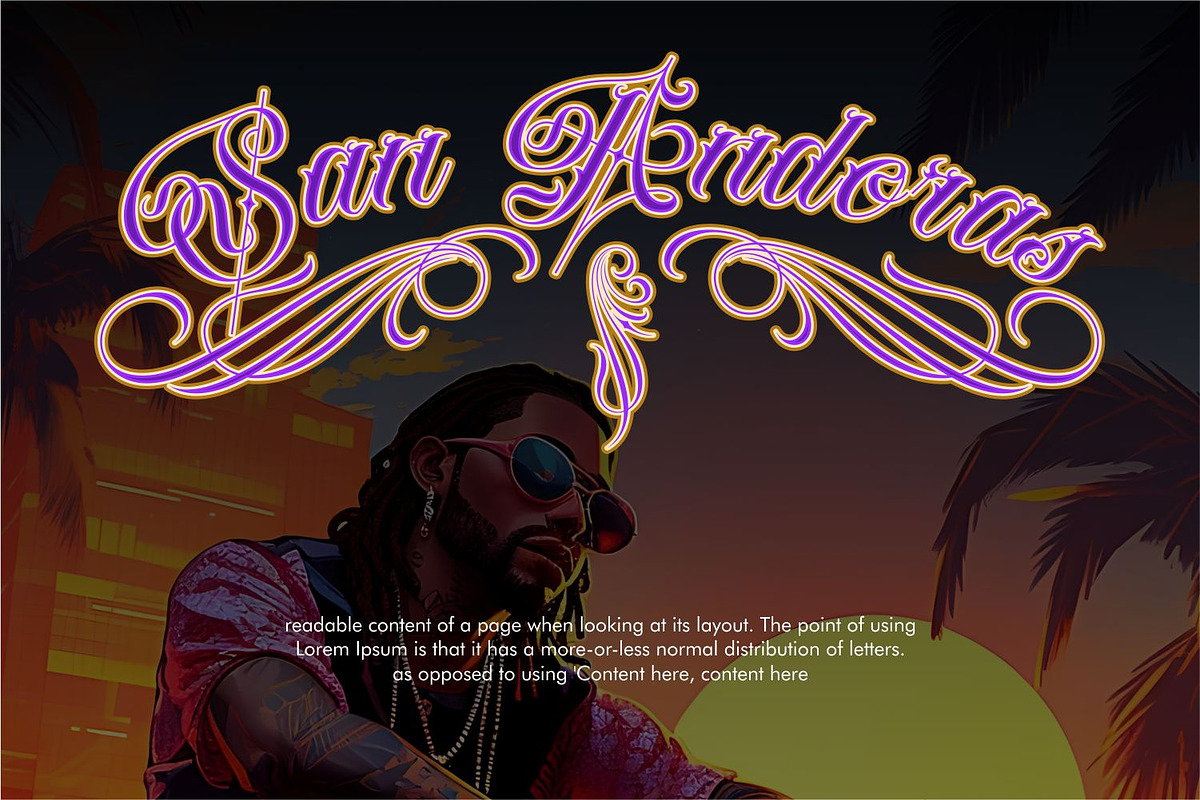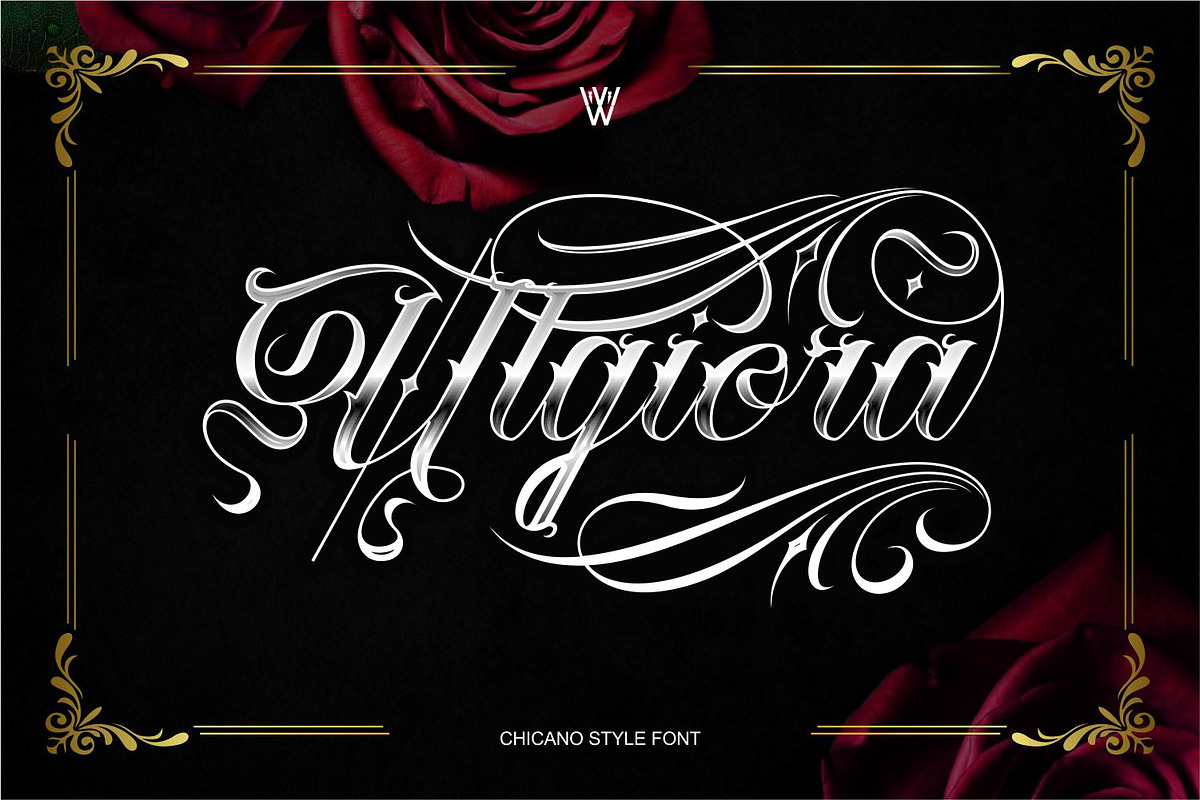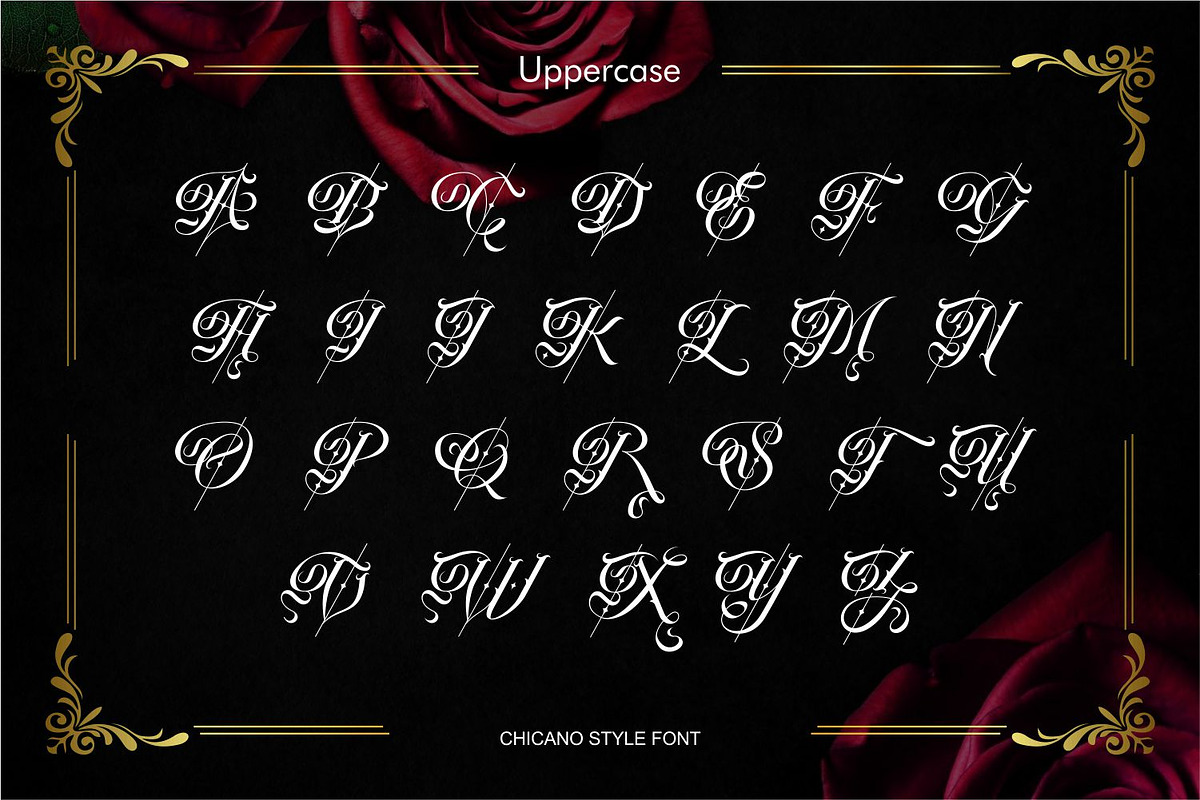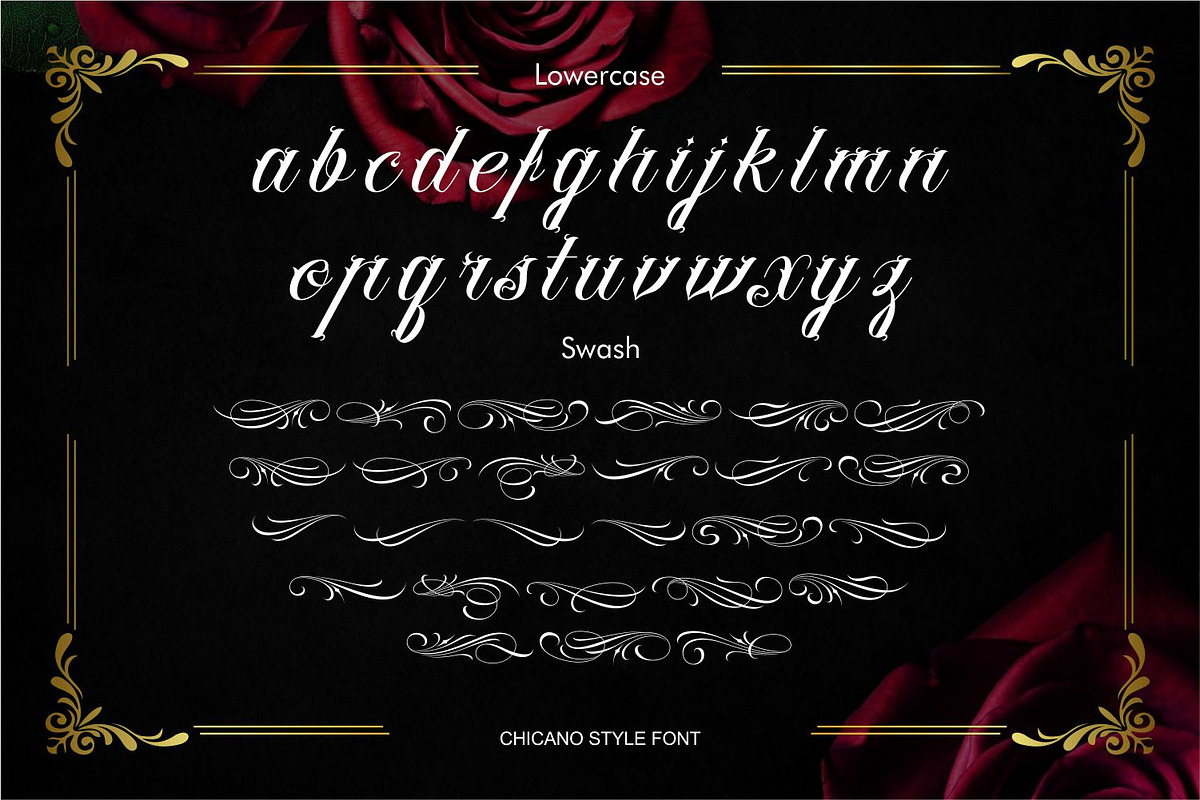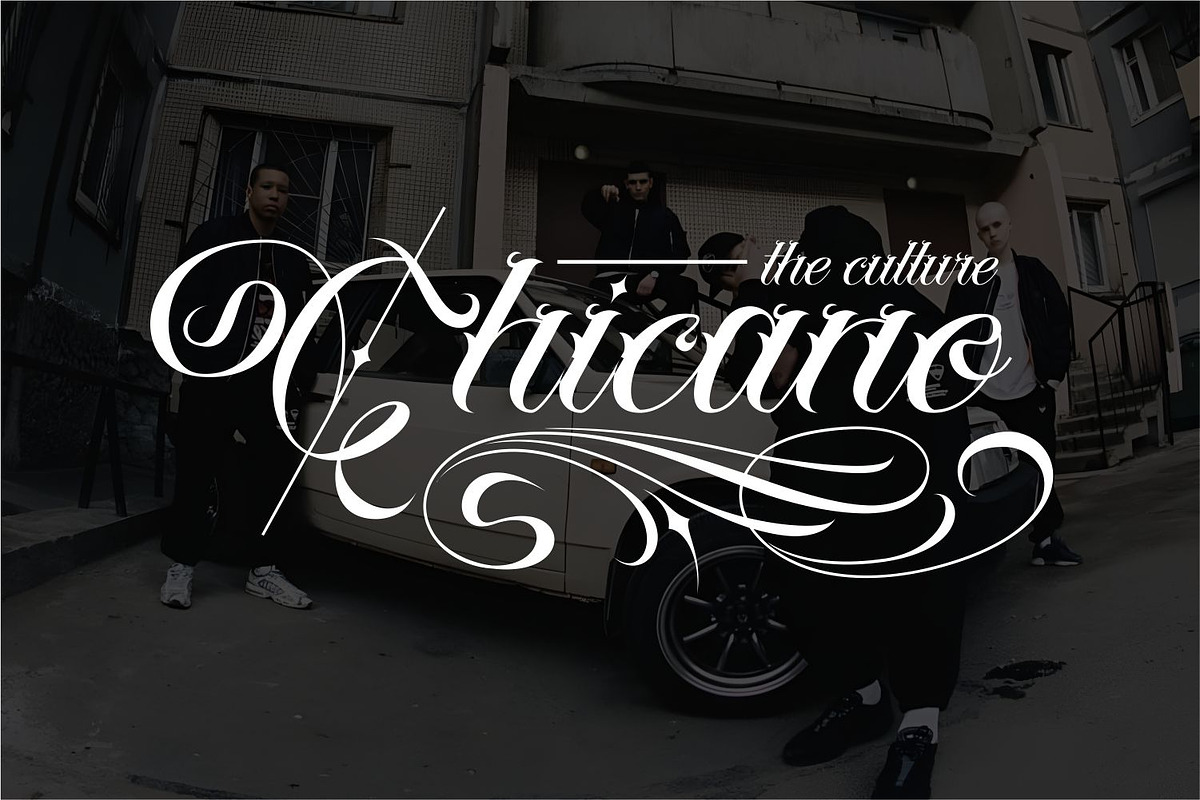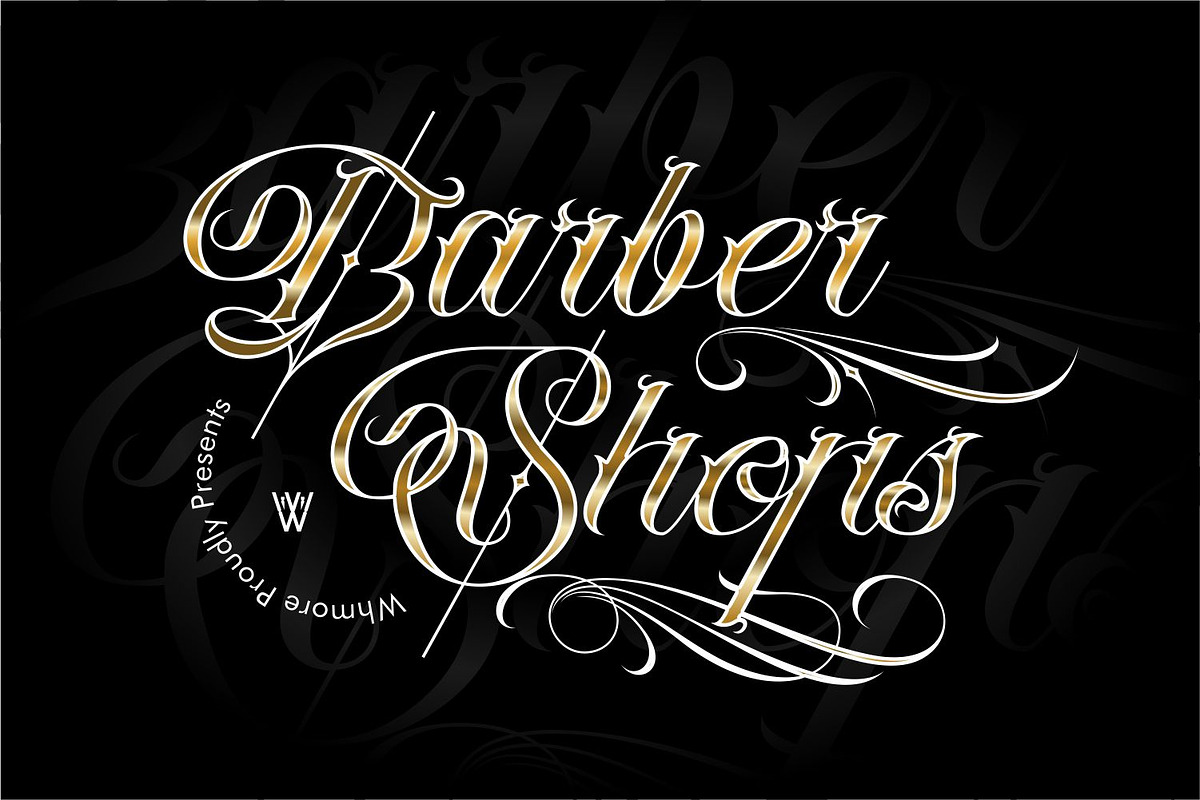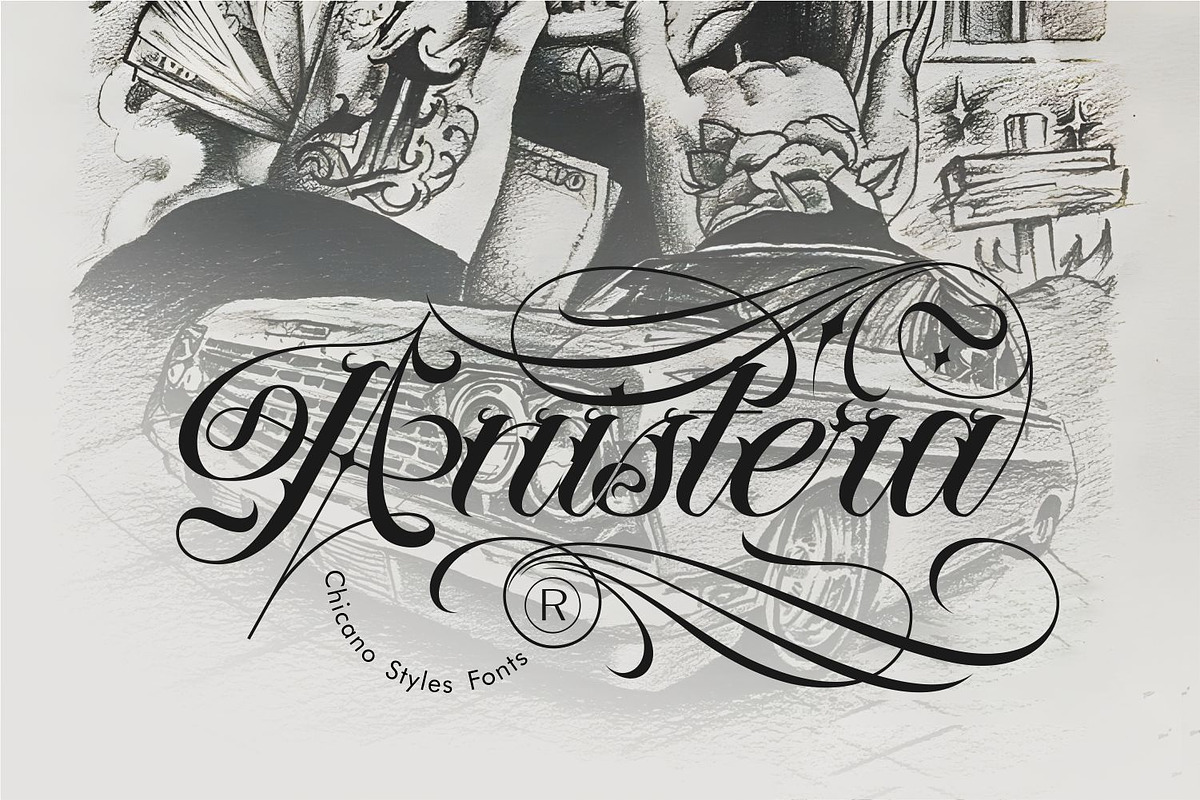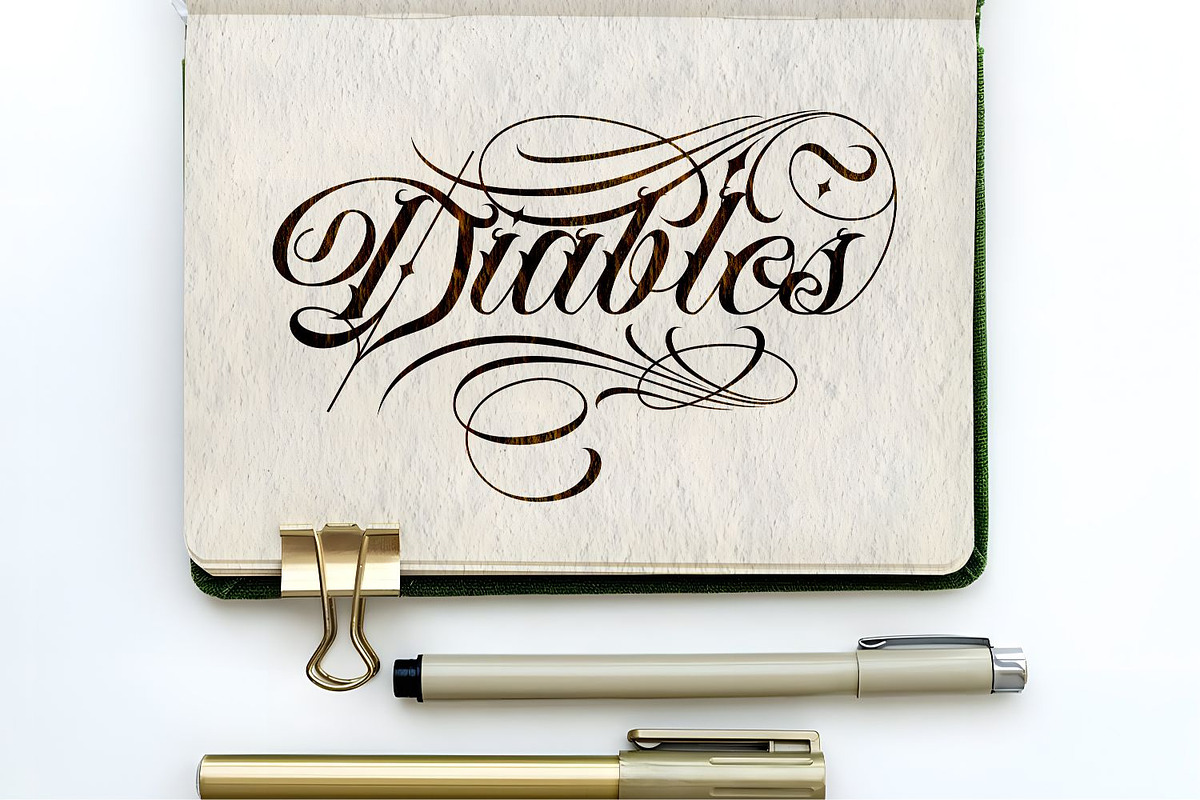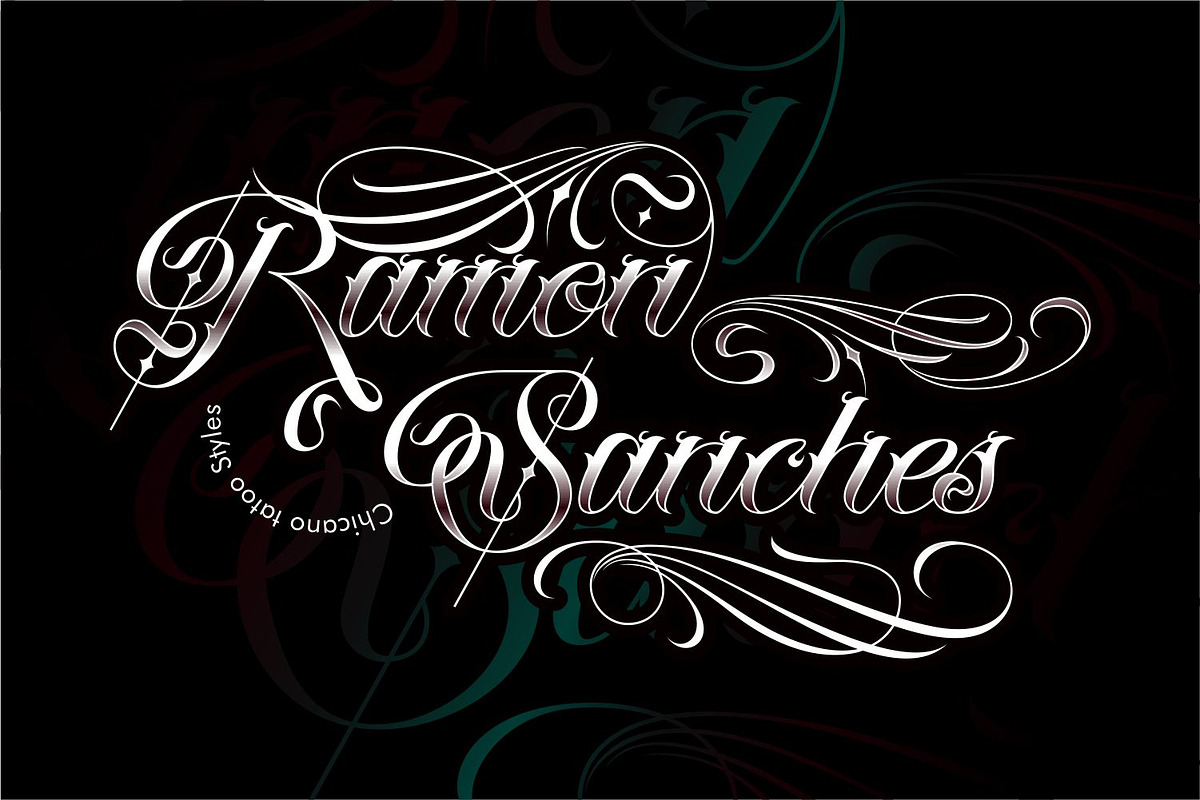
Ulgiora Edgy and Luxurious Tattoo
Elevate your creative projects with "Ulgiora Edgy Chicano Tattoo Font", a luxurious fusion of Chicano script elegance and bold blackletter aesthetics. Designed for modern creators who value self-expression, cultural authenticity, and artistic edge, this font is perfect for crafting custom tattoo designs, premium logo branding, and fashion design.
The intricate swashes and refined curves bring sophistication and attitude to your designs, making them truly stand out. Ideal for tattoo artists, fashion brands, and designers who want to create meaningful visual stories.
🎯 Perfect For: Custom tattoo lettering Barbershop branding Fashion designs Vintage & retro-themed projects Streetwear and urban lifestyle branding